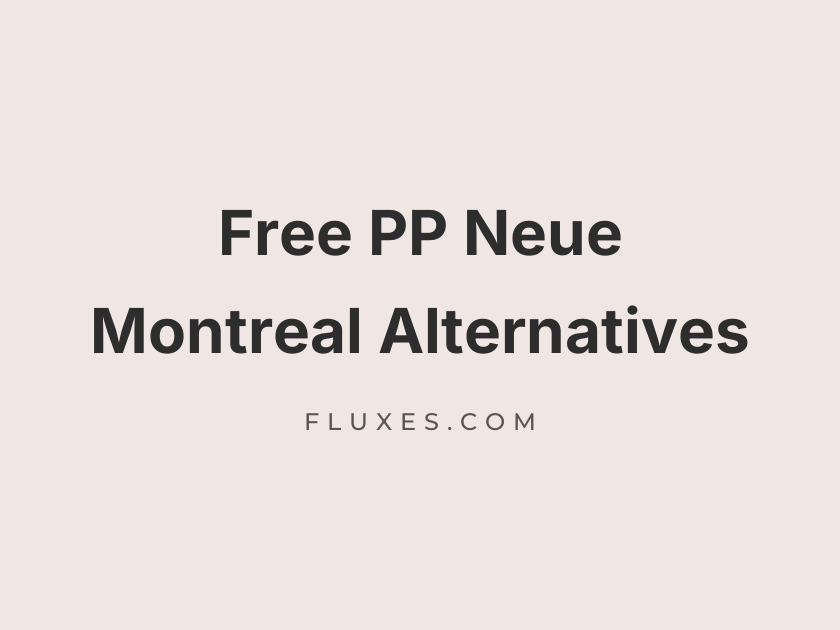
15 Best Free Fonts Alternatives to PP Neue Montreal
PP Neue Montreal has become the default typeface of contemporary tech branding: a Swiss-inflected grotesque with just enough warmth in its curves to avoid feeling cold, and a few quirky details (that looping “t,” the softened “a”) that keep it from reading as generic. Because it is a commercial release, designers working on tight budgets or open-source projects often look for free fonts with the same neutral, functional character. The good news is that Google Fonts has grown a genuinely strong bench of grotesque and geometric sans typefaces that capture that same Swiss-modernist restraint without the licensing fee, whether you need something for a product interface, a startup landing page, or an editorial system.
Designed for screens, interfaces, and everyday reading
Inter is the obvious starting point, and for good reason. It was built specifically for UI work, with a tall x-height and careful spacing that keeps paragraphs of body copy legible at small sizes, which is exactly where Neue Montreal can occasionally feel tight. It lacks some of Neue Montreal’s personality, but that neutrality is precisely why it has become the default typeface for so many product teams.
Modern branding with a technical, engineered feel
If you want something closer to Neue Montreal’s quirkier letterforms, Space Grotesk is worth a close look. It shares that same slightly mechanical, monospace-derived rhythm, with distinctive details in the lowercase “g” and “y” that give headlines real character. It works especially well in tech branding, dashboards, and anywhere you want type that feels engineered rather than typeset.
Clean grotesque structure for editorial and web design
Archivo is a workhorse grotesque with the kind of even, confident structure that suits both long-form editorial layouts and interface labels. Its wide range of weights and widths makes it flexible enough to carry an entire brand system on its own. It reads a touch more traditional than Neue Montreal, but the underlying Swiss-grotesque DNA is unmistakable.
Friendly, optimized text for websites and apps
Work Sans was optimized for on-screen text at smaller sizes, and it shows in how comfortably it sets in dense paragraphs. It has a slightly warmer, more humanist touch than Neue Montreal, making it a good pick for products or publications that want approachable rather than austere. Pair it with a bolder geometric display face for contrast in headings.
Sleek headlines for a modern digital brand
There is a crispness to Manrope’s curves that makes it feel custom-cut for landing pages and app interfaces. Its low contrast and open apertures keep it legible at small sizes, an area where Neue Montreal can sometimes turn muddy. Manrope tends to look best in tight, controlled letter spacing rather than loosely tracked headlines.
Geometric confidence for product and startup type
Sora leans more geometric than Neue Montreal, with rounder bowls and a slightly more constructed feel, but it shares the same startup-friendly neutrality. It has quickly become a favorite for SaaS marketing sites looking for something distinct from Inter. Use a heavier weight for hero headlines and it holds up with real presence.
Balanced grotesque for text and display use
Hanken Grotesk is an underrated option for anyone comparing free fonts to PP Neue Montreal. Its proportions sit close to true Swiss grotesques, with square-ish dots and a restrained personality that never distracts from the message. It performs equally well as body text and as a mid-weight subheading.
Schibsted Grotesk
Editorial grotesque built for news and reading
Schibsted Grotesk
Originally developed for a Scandinavian newspaper group, Schibsted Grotesk carries a journalistic clarity that suits both digital publications and brand systems that need to feel trustworthy. Its letterforms are a little more grounded and less playful than Neue Montreal’s, which can be an advantage for serious, information-dense layouts.
Instrument Sans
Contemporary grotesque for interfaces and branding
Instrument Sans
Instrument Sans is one of the newer additions to Google Fonts, and it was clearly designed with current interface trends in mind. The letterforms feel tight and controlled, with subtle personality in the curves that recalls Neue Montreal’s own understated character. It is a strong choice for teams who want something that feels current without following an obvious trend.
Rounded warmth for friendly digital products
Figtree softens the grotesque formula slightly, with rounder terminals that give it a more approachable, consumer-facing feel. It suits apps and brands that want warmth without tipping into a rounded, playful typeface. At display sizes it has a pleasant, unforced rhythm that reads well in short bursts of marketing copy.
Neutral, functional type for civic and product design
Built originally for U.S. government digital services, Public Sans was designed above all to be unobtrusive and highly functional. It shares Neue Montreal’s Swiss-grotesque lineage but strips away any decorative flourish, making it a dependable choice where clarity and accessibility matter more than character. It is not the most exciting font on this list, but it may be the most reliable.
For editorial projects, consider pairing one of the more neutral options, such as Public Sans or Archivo, with a serif for long-form reading, reserving the grotesque for navigation and headings.